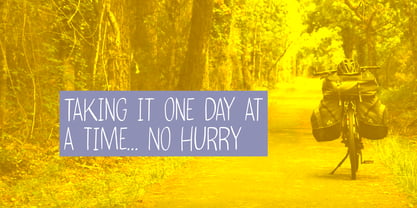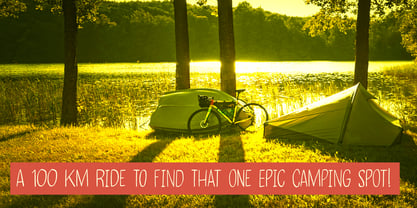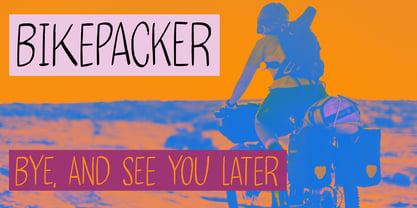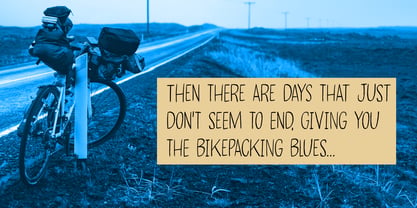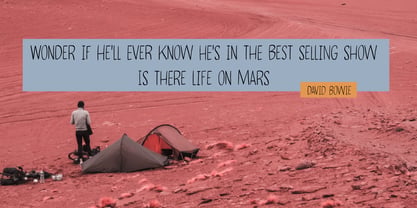
Bikepacker
by Hanoded
Back in the day, when the expression ‘bike packing’ did not yet exist, I rode my bike to Denmark from home in The Netherlands. A few years after, my wife (then girlfriend) and I took the ferry over to the UK and cycled from Hull, across the North York Mores NP to Yorkshire Dales NP, then on to the Lake District, across to Berwick-upon-tweed and back down to Hull.
This year we decided to take the kids on a cycling trip in England - from Harwich to Wells-next-the-sea, then to Cambridge and back to Harwich. It rained every day and I don’t think the kids will ever go one a bike packing holiday again..
Bikepacker is a rough, tall & thin font. Ideal for packaging and book covers. Comes with a set of alternates which cycles as you type.
About Hanoded
Hanoded is run by Dutchman David Kerkhoff. His fonts are a mishmash of styles, as he just creates whatever pops into his head. You will find a lot of brush fonts in his collection, as his favourite tools are brushes and Chinese ink, with cartoon style fonts and script fonts complementing his repertoire. Aside from making fonts, David occasionally guides tours in far-flung places, renovates his '30's house and tries reasoning with his wife and (teenage) kids. Not an easy task!